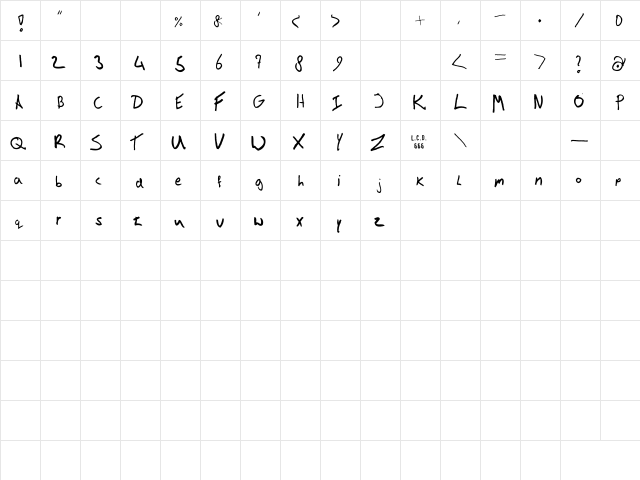
Victor Handwriting Regular
| Foundry | High-Logic |
| Designer | Victor Freriks |
Design Context for Victor Handwriting Typeface
Victor Handwriting flows with the natural rhythm of handwritten lettering, making it ideal for designs that call for warmth and personal expression.
Font Pairing: Combine Victor Handwriting with a simple geometric sans for maximum contrast — the tension between flowing curves and clean structure is a classic typographic pairing.
Pro Tip: Use Victor Handwriting for short runs of text — names, titles, or taglines. Extended body copy in script faces tires the eye quickly.